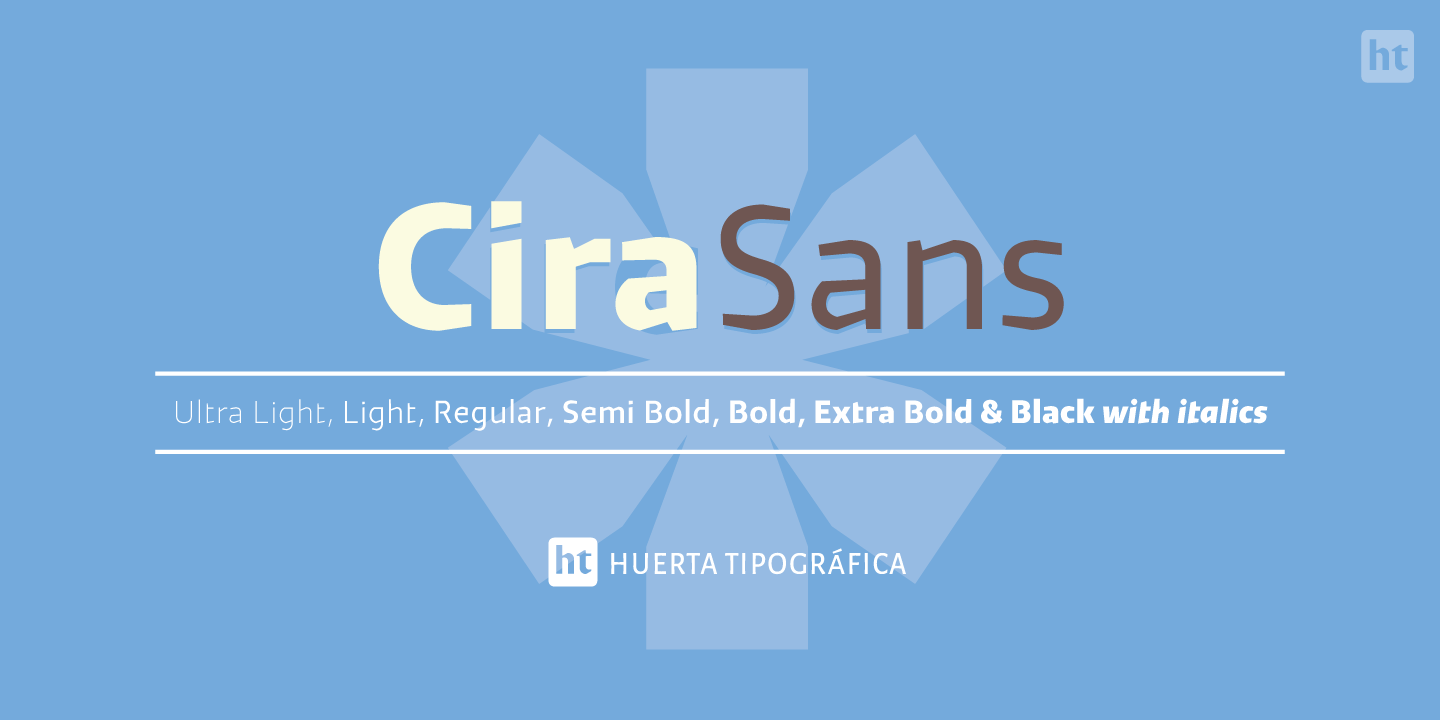
Cira Sans Font is perfect for modern corporate branding, tech startup logos, minimalist web design, mobile app interfaces, contemporary magazine layouts, architectural presentations, clean product packaging, professional business cards, digital marketing materials, and sleek editorial designs that require sophisticated simplicity and modern elegance.
What makes Cira Sans Font so exciting is its perfect balance between geometric precision and humanistic warmth. This typeface combines clean, contemporary lines with subtle character variations that prevent monotony while maintaining exceptional readability. Its refined proportions and carefully crafted letterforms create a sense of professionalism and innovation that appeals to modern audiences seeking clarity and sophistication.
Cira Sans Font family includes comprehensive weight options: Thin, Extra Light, Light, Regular, Medium, Semi Bold, Bold, Extra Bold, and Black, each available in both Upright and Italic versions. Additionally, it offers Condensed variants across all weights, providing designers with extensive flexibility for creating dynamic typographic systems.
The modern appeal of Cira Sans Font Free Download makes it exceptionally suitable for contemporary design challenges. This font excels in both screen and print environments, maintaining crisp clarity at any size while delivering consistent performance across different media. Its neutral yet distinctive character makes it ideal for brands that want to appear forward-thinking and reliable. The font's excellent spacing and kerning ensure optimal readability in body text while its clean geometry creates impactful headlines and displays.